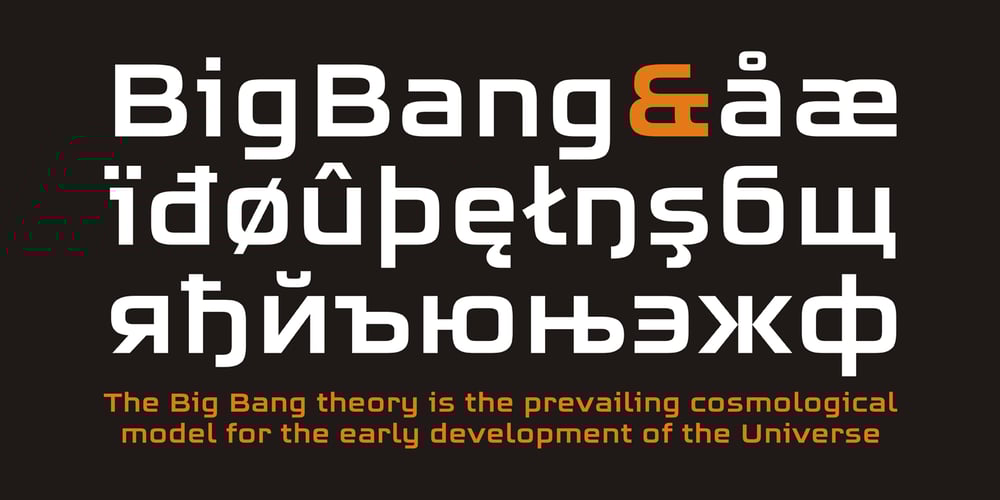
BigBang
BigBang font
BigBang Font Family was designed by Dragan Pešić and published by Pesic. BigBang contains 1 styles and family package options. BigBang is geometrically monoline, modular sans serif font, square looks glyphs. It is suitable for use in the fields of architecture, urban planning, techniques, electronics, advertising, futuristic themes, film, computers, phones, video games, logos… BigBang contains Latin and Cyrillic glyphs.